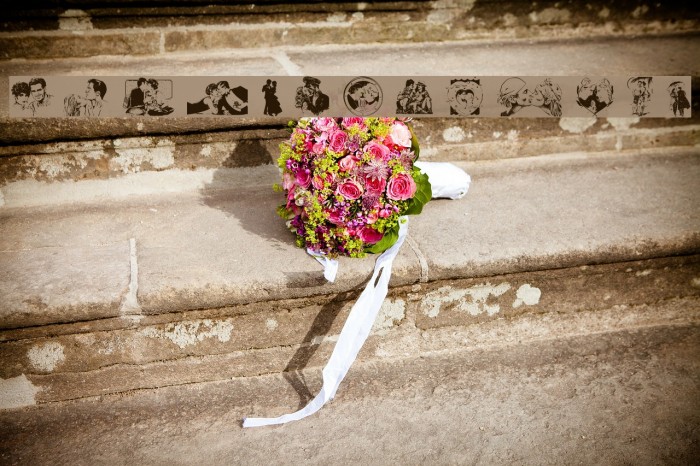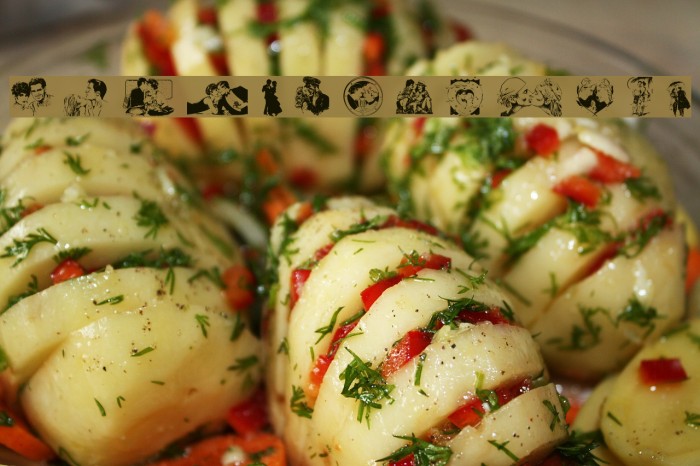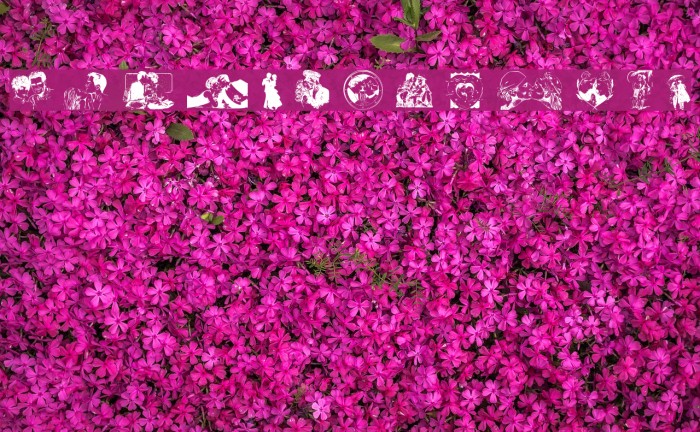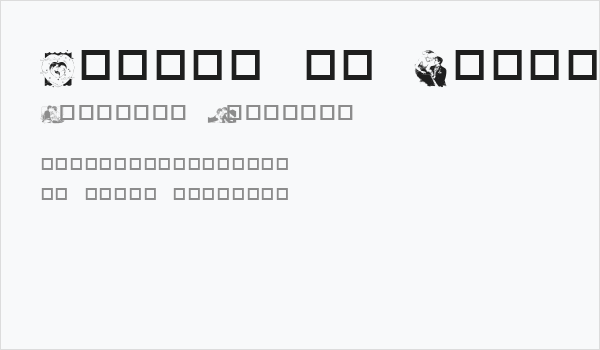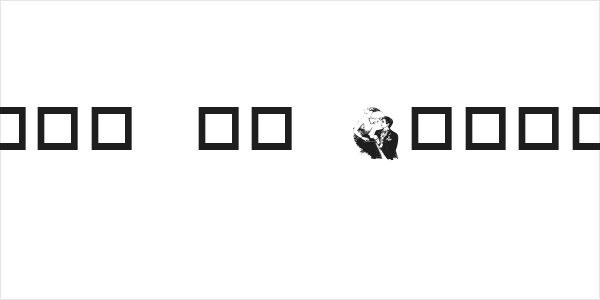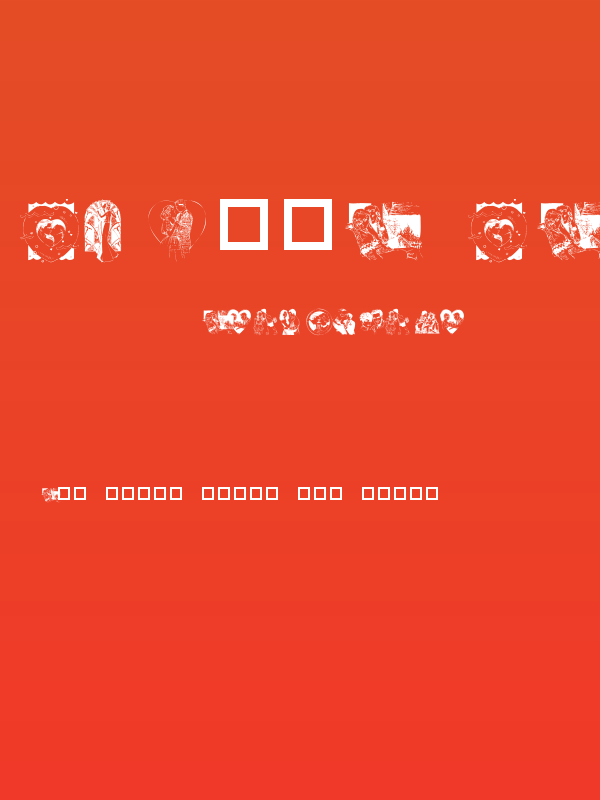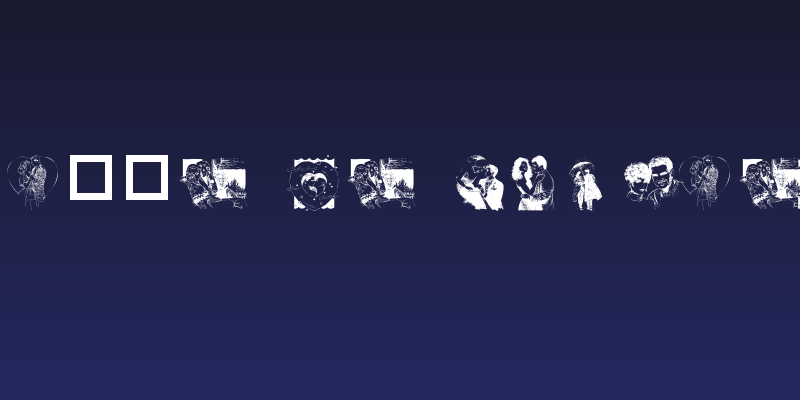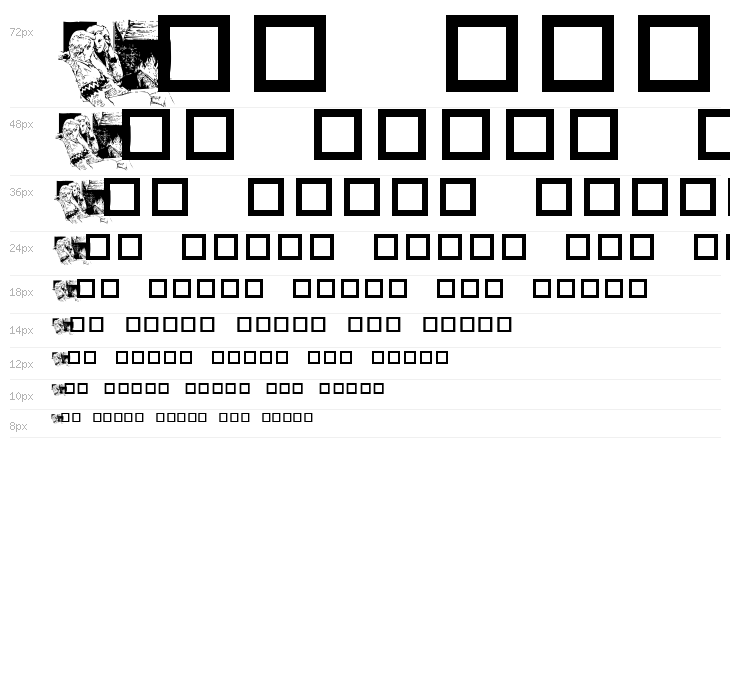
Isn't it Romantic Font
Isn't it Romantic Description
| Overall Style | Vintage, Decorative |
| Use Case | Decorative elements, Themed graphics, Not suitable for body text or headlines. |
| Proposed Projects | Valentine's Day cards, wedding invitations, romantic event posters, scrapbooking, themed graphic design projects. |